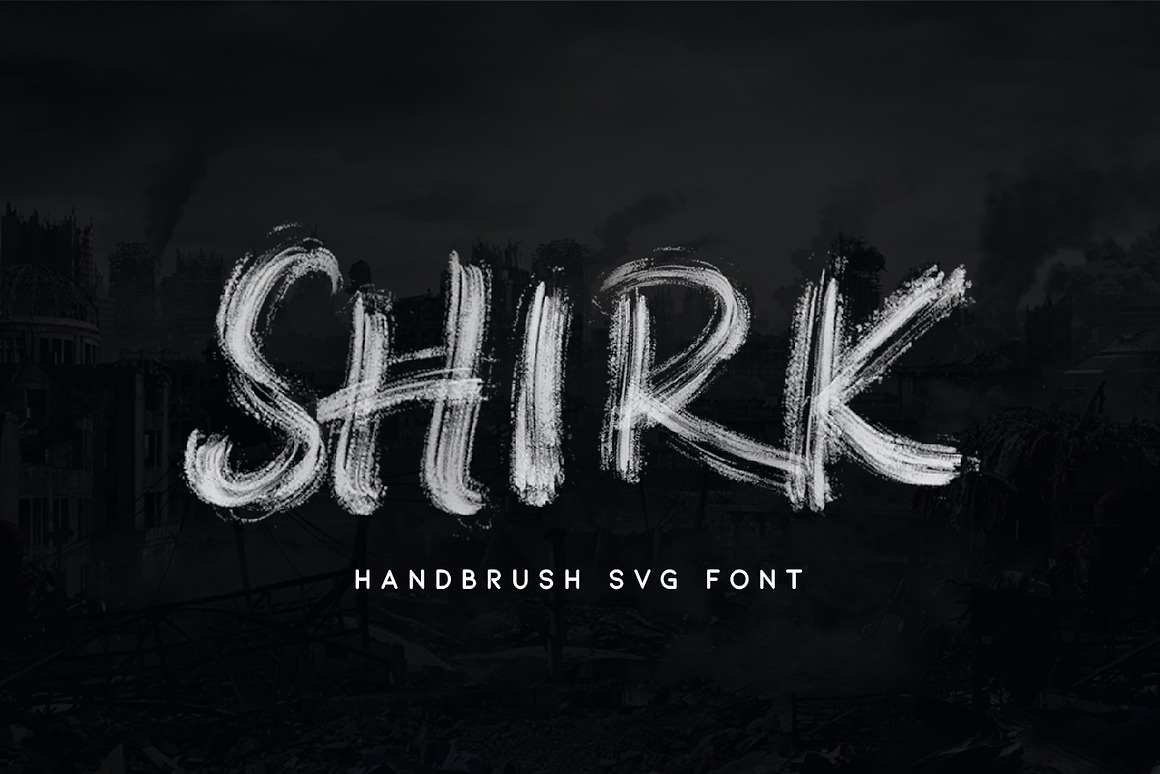
Shirk - Handbrush SVG
Shirk - Handbrush SVG is perfect for artistic branding projects, creative studio identities, handmade product packaging, artisanal business communications, painted signage design, craft workshop materials, artistic exhibition graphics, and authentic advertising campaigns. This expressive typeface works beautifully in both digital applications and print media where handcrafted authenticity and artistic brush texture are essential design elements.
What makes Shirk - Handbrush SVG so exciting is its masterful interpretation of traditional brush painting techniques through textured letterforms that capture the same organic flow and artistic spontaneity found in authentic hand-painted lettering and traditional signage craftsmanship. The font features brush-painted characters with artistic proportions, natural texture variations, and handcrafted details that communicate creative authenticity, artistic skill, and the irreplaceable quality of hand-painted typography. Its artistic personality and craft heritage make it ideal for creative brands seeking to establish handmade credibility while appealing to audiences who appreciate authentic artistic technique and traditional craft methods.
The Shirk - Handbrush SVG family includes multiple stylistic variations with different brush intensities, along with textured alternates and artistic ornamental elements. Each style maintains the typeface's handcrafted character while offering comprehensive character sets including artistic numerals, brush-painted punctuation marks, and special symbols designed to enhance creative communications and handmade branding efforts across various artistic contexts.
This remarkable typeface represents the perfect marriage of traditional brush painting and contemporary digital functionality for creative and artisanal industries. Whether you're developing artistic studio identities, creating handmade product materials, or designing craft-focused promotional campaigns, Shirk - Handbrush SVG Free Download provides the artistic authenticity and versatility needed to connect with craft-appreciating audiences. The font's handcrafted appeal makes it particularly effective for artist studios, craft businesses, artisanal producers, and organizations celebrating the beauty and authenticity of traditional hand-painted lettering and artistic brush techniques.
The meticulously crafted brush textures and optimized artistic performance in Shirk - Handbrush SVG ensure both authentic craftsmanship and clear communication across all creative applications. Its expressive presence makes it perfect for artistic branding, handcrafted marketing materials, and creative communications where its full brush-painted character can create lasting connections with audiences who appreciate genuine artistic skill, traditional craft techniques, and the irreplaceable beauty of authentic hand-painted typography.